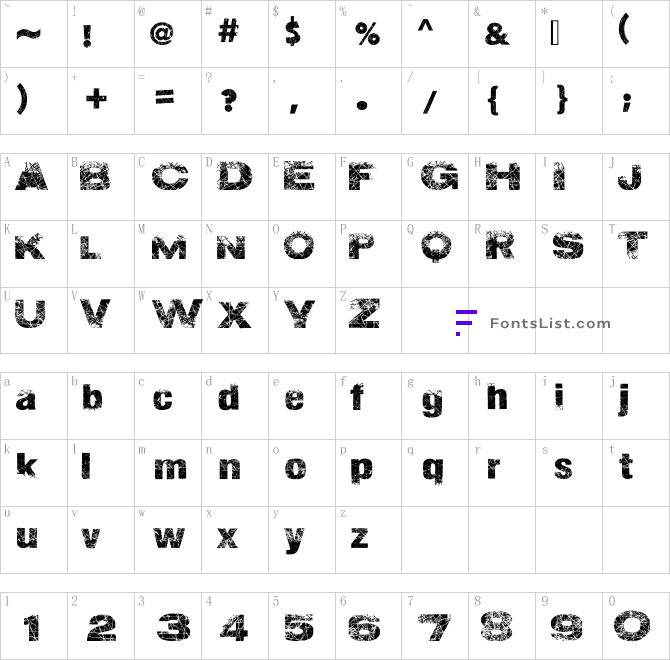
- Font Name:Action of the Time New
Action-of-the-Time-New-copy-1-.ttf is a very beautiful artistic font, Action-of-the-Time-New-copy-1-.ttf is widely used in the design and printing of various books and pictures,Action-of-the-Time-New-copy-1-.ttf has a strong visual impact,Action-of-the-Time-New-copy-1-.ttf is a commonly used font in newspapers, magazines and books, and is used in posters, e-commerce Poster design, store design, logo design, font design and other fields.Action-of-the-Time-New-copy-1-.